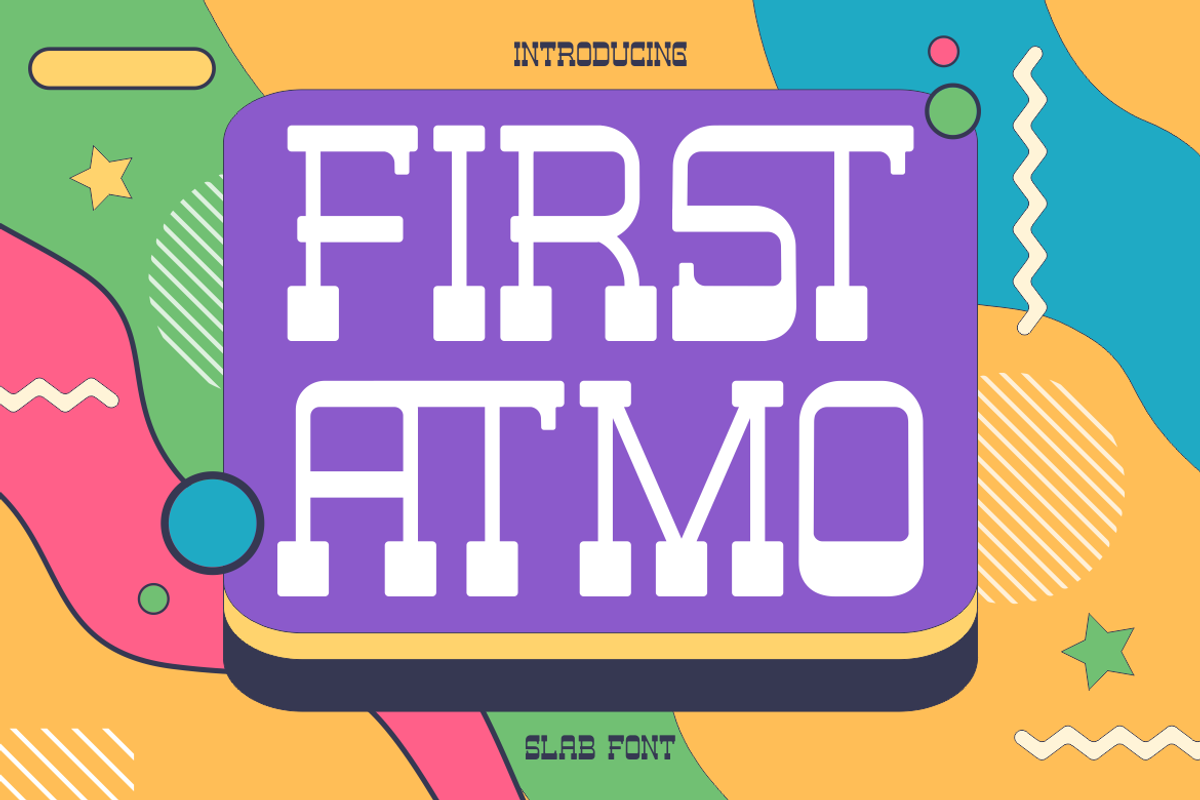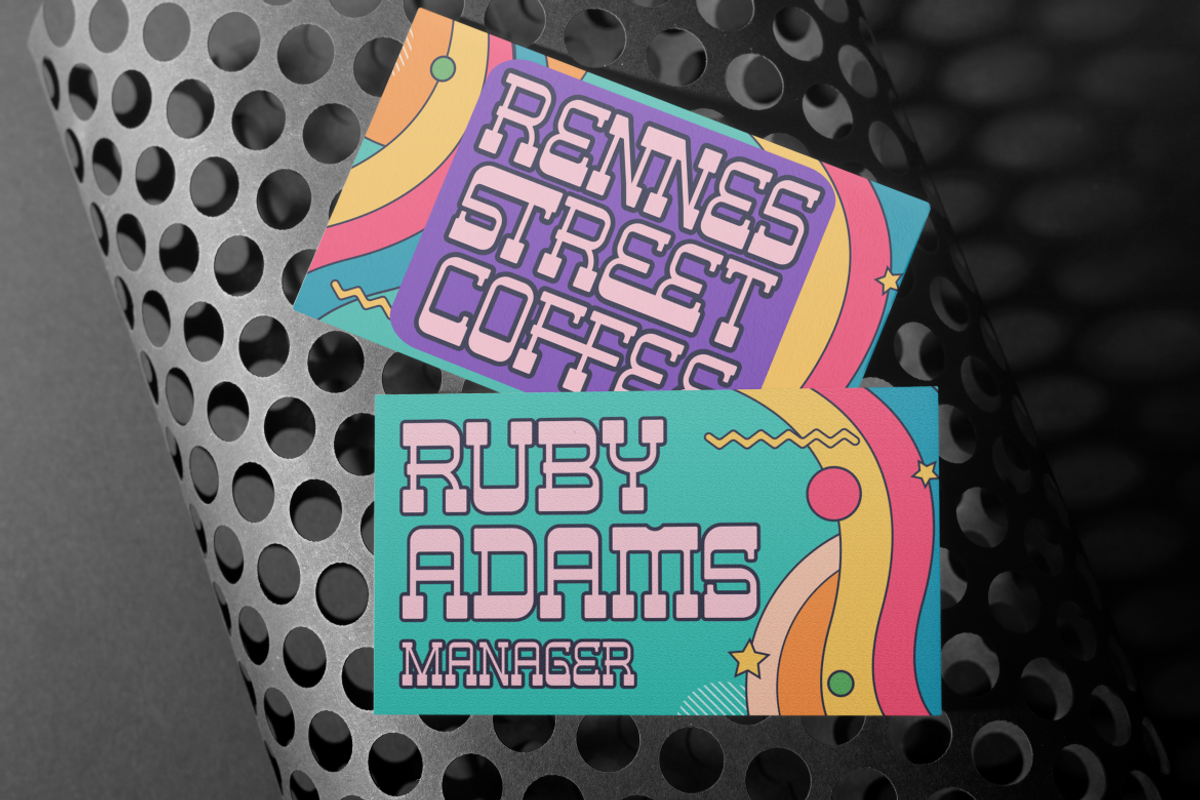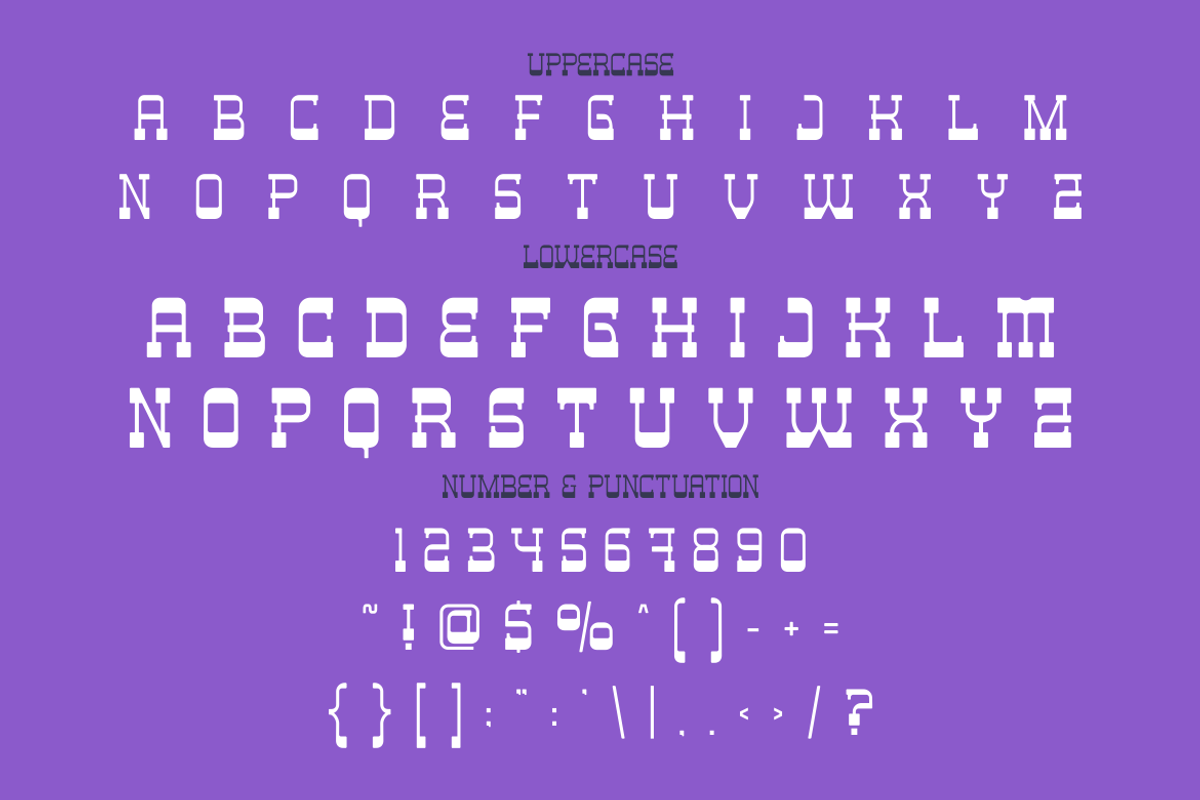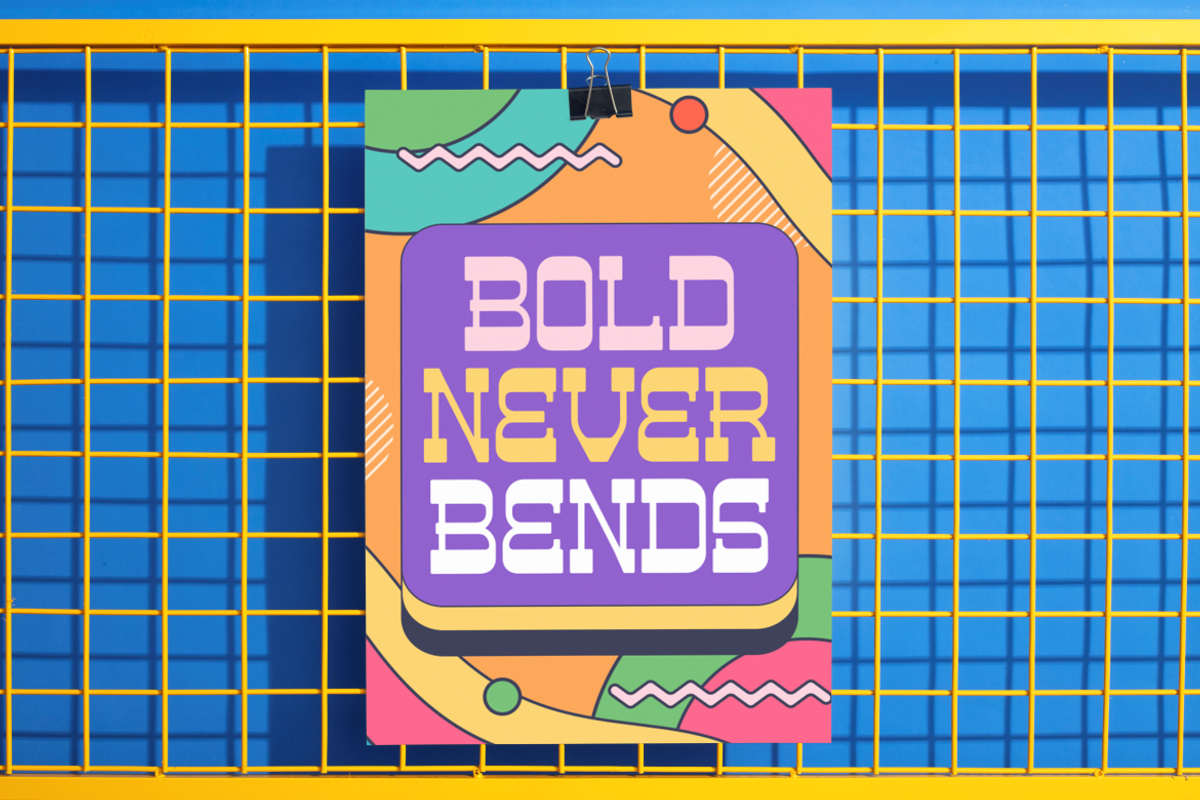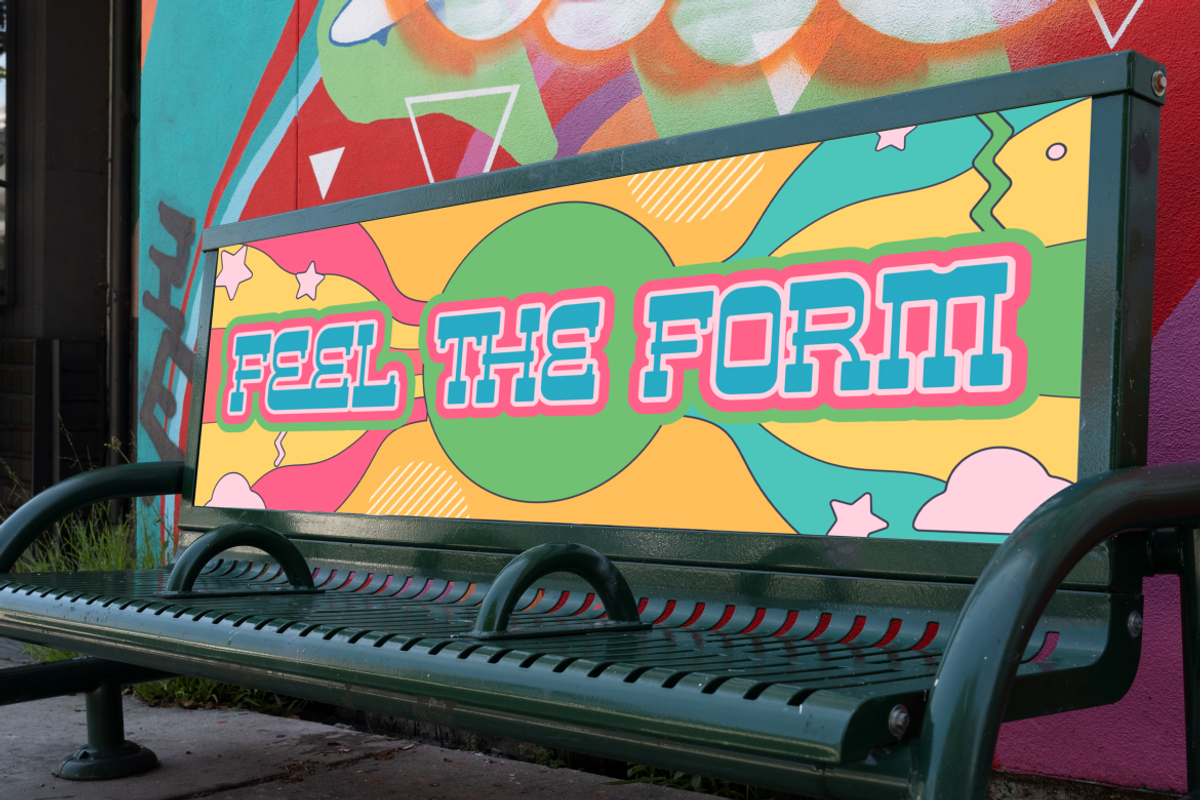
First Atmo Mexican Font
Step into the vibrant world of Mexican-inspired typography with First Atmo, a playful slab display font that commands attention. Each letterform combines the strong structure of slab serifs with quirky, rounded counters and geometric terminals that evoke a nostalgic, cultural energy. With its all-caps design and pixel-perfect precision, this font embodies retro modernism while maintaining a distinct Mexican folk-art flair. The chunky serifs and squared edges add both personality and power, making every character feel bold, grounded, and full of character.
Ideal for bold designs and expressive layouts, First Atmo shines in various creative applications such as logos, branding kits, poster headlines, coffee packaging, and event invitations. Its versatility makes it suitable for both print and digital use, and the font pairs especially well with colorful, vibrant visual backdrops. Whether you're designing a lively film title, a retro café logo, or a standout business card, First Atmo offers the flair and energy to make your message pop.